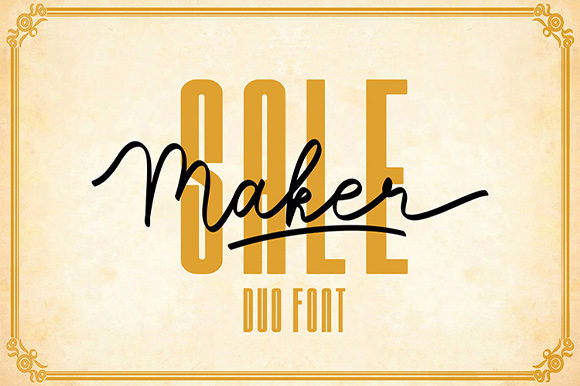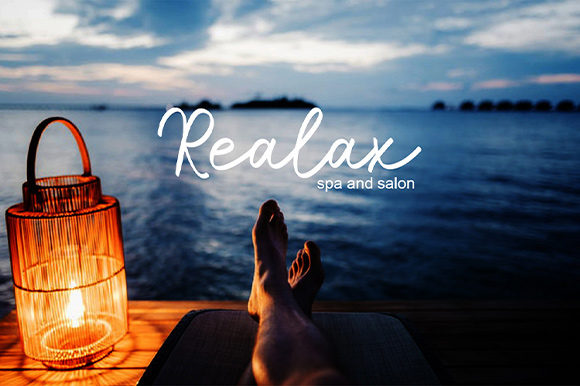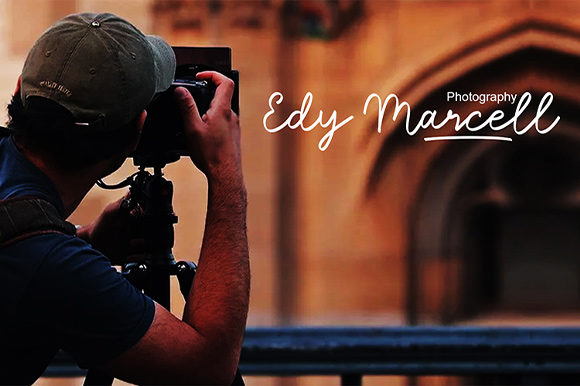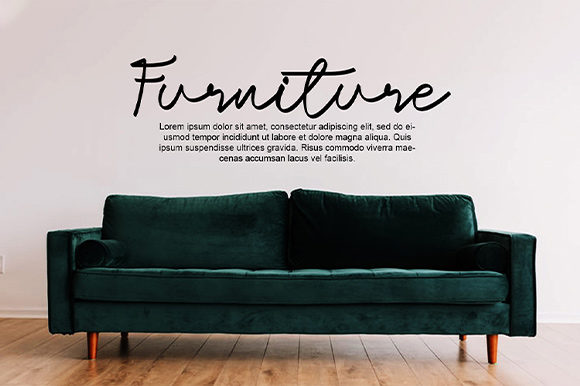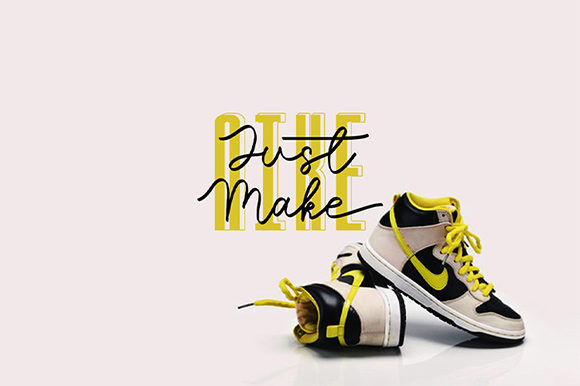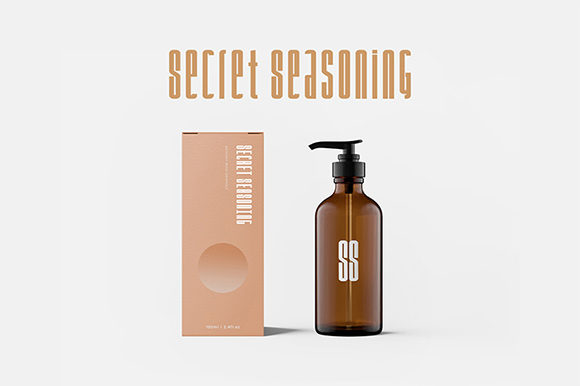
Sale Maker Font
About Sale Maker Font
Sale Maker is a magical duo script font carefully created with a touch of elegance. It will elevate a wide range of design projects to the highest level, be it branding, headings, wedding designs, invitations, signatures, logos, labels, and much more!